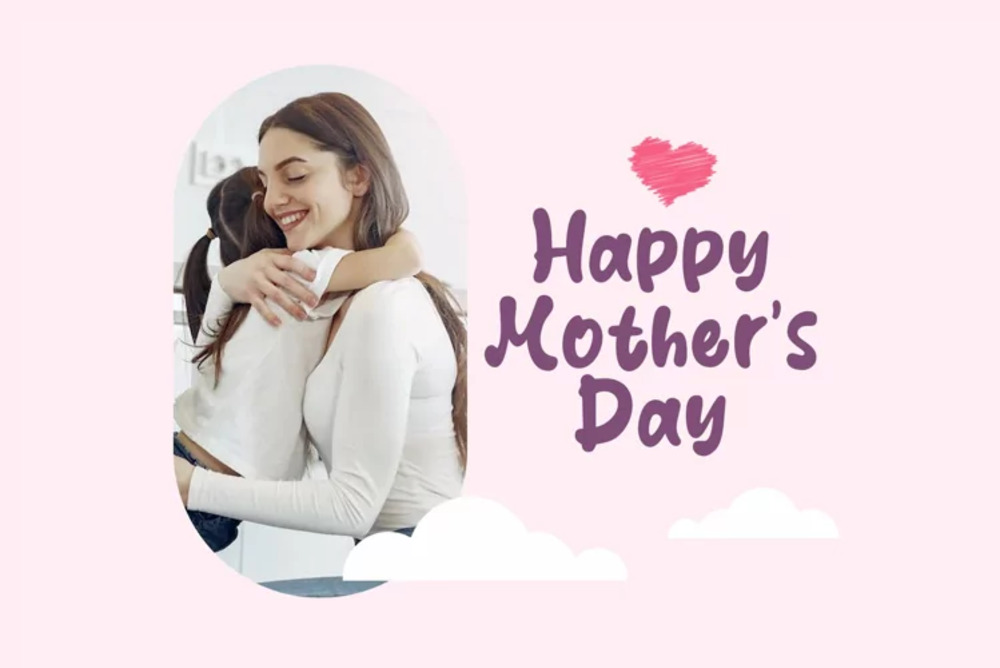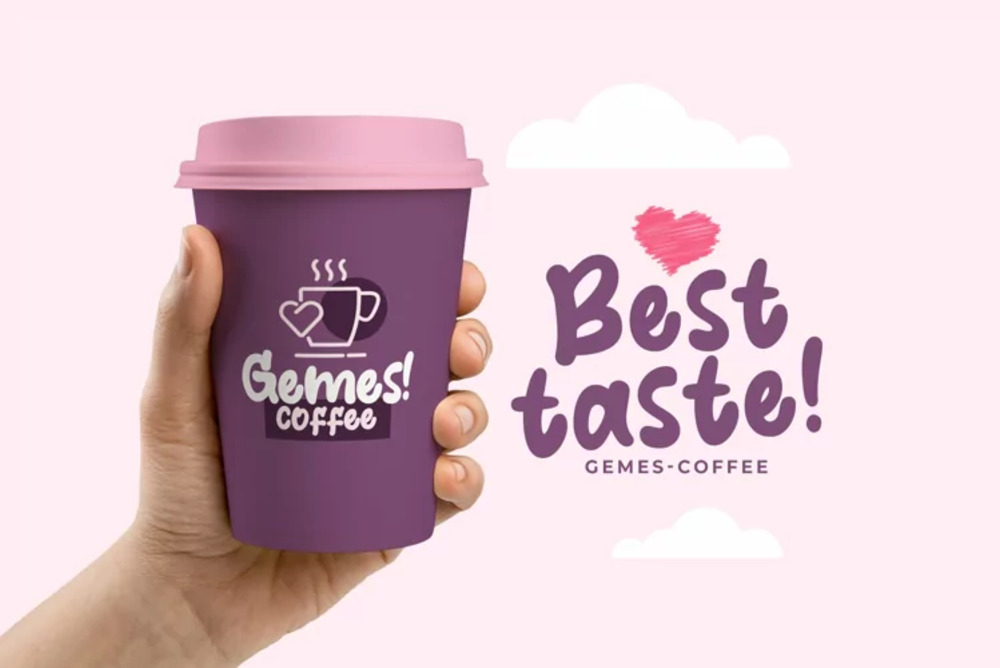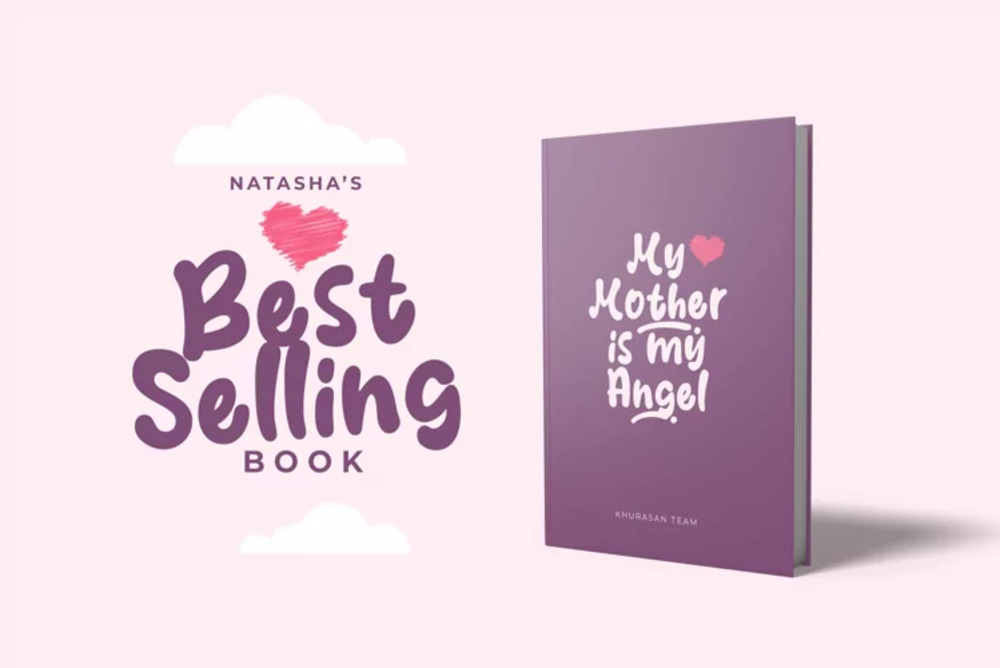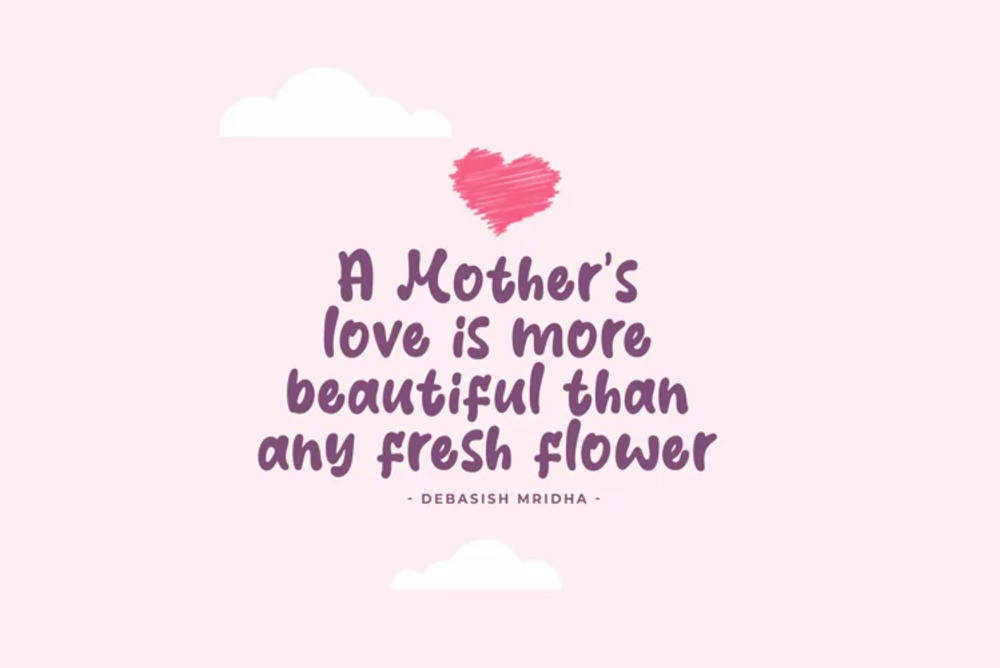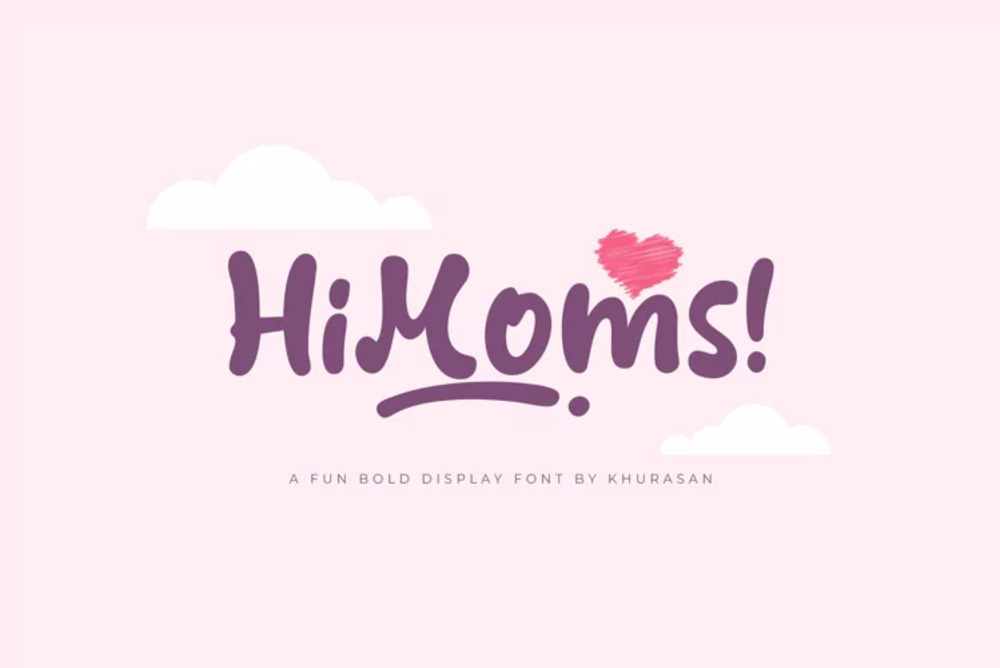
HiMoms font
HiMoms is a playful and charming display font with a bouncy, handwritten feel. Its rounded letters and friendly vibe make it perfect for children’s books, greeting cards, and any project that needs a touch of fun. HiMoms adds a warm and inviting touch to your designs.